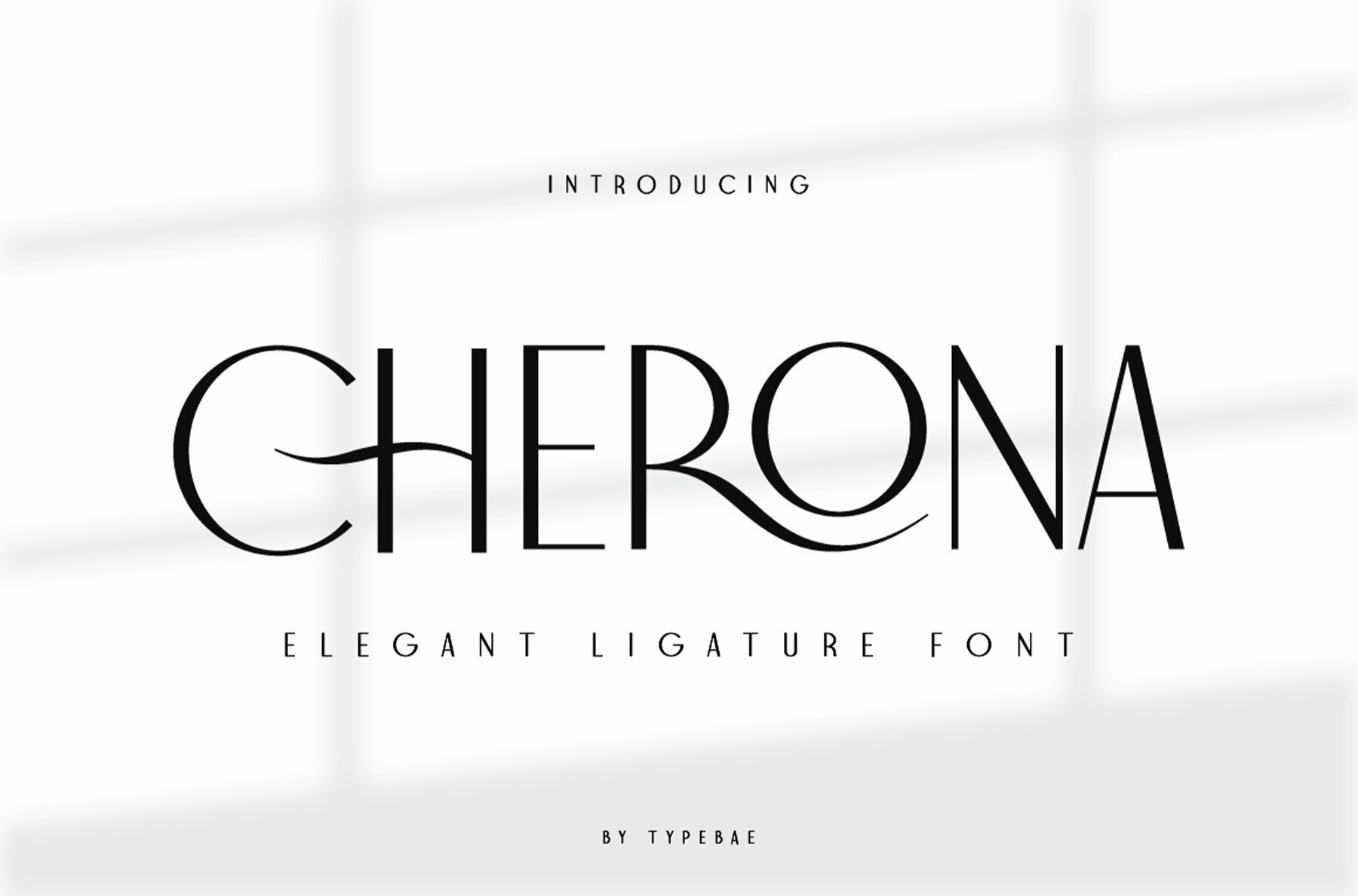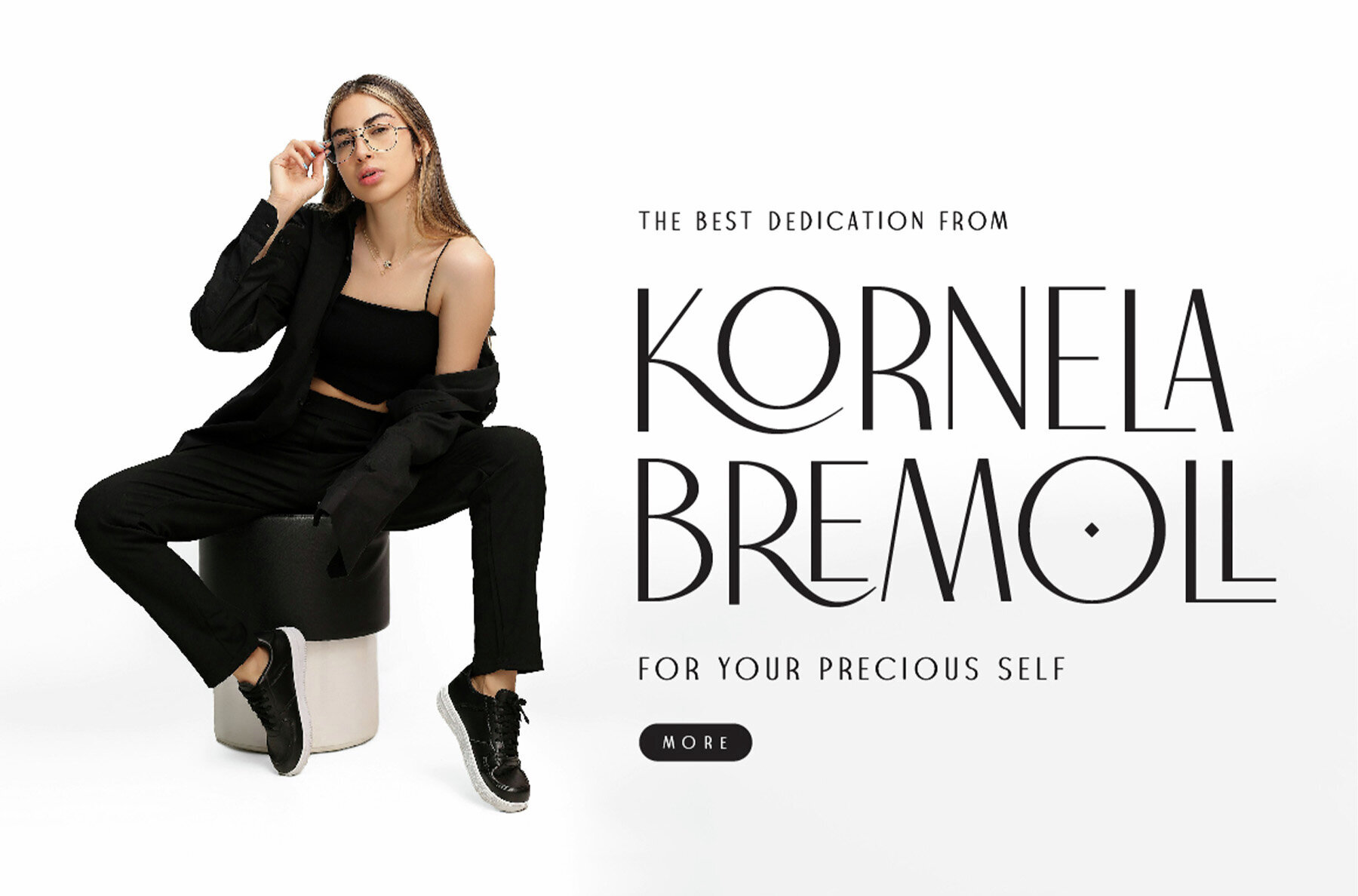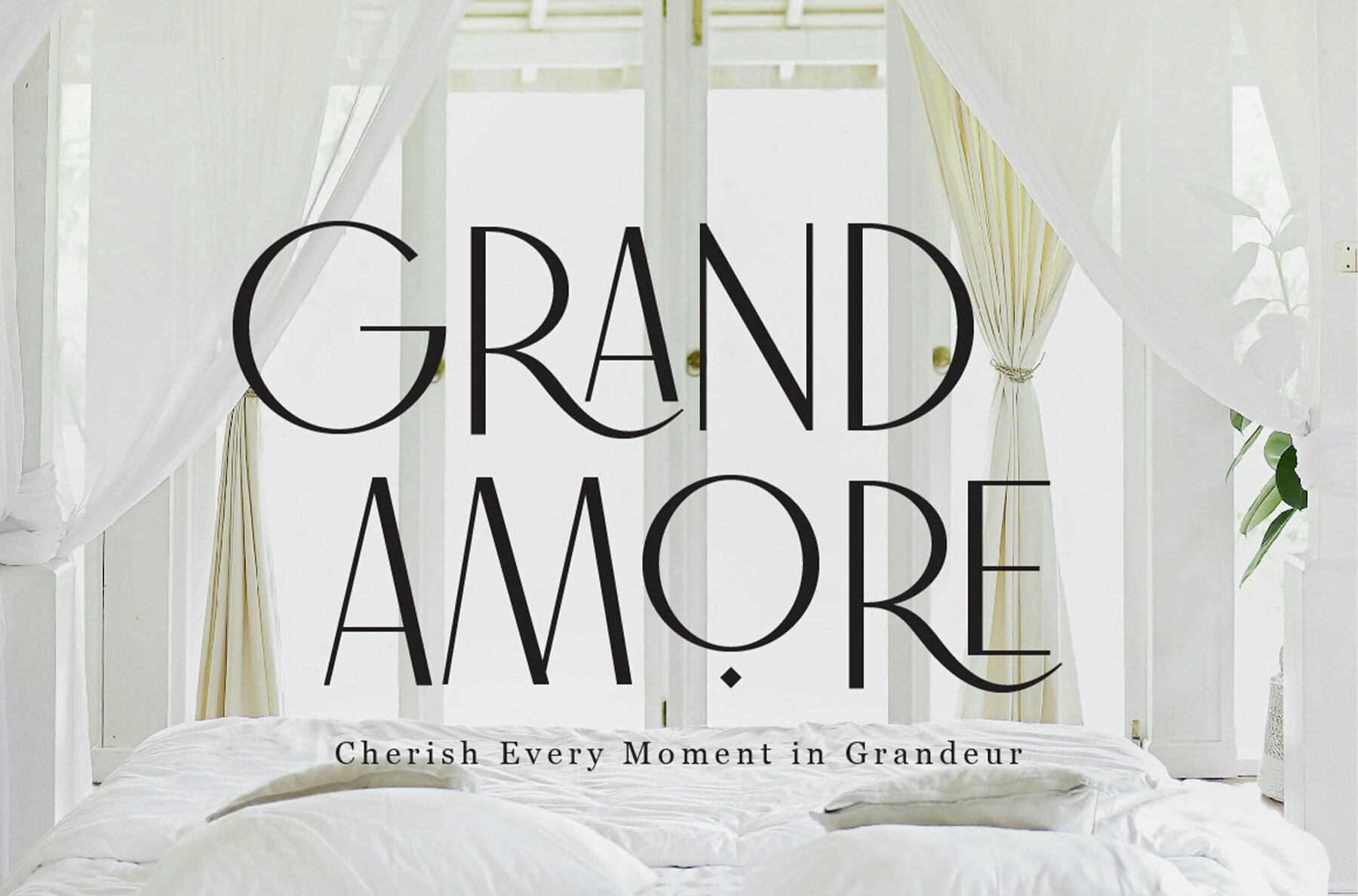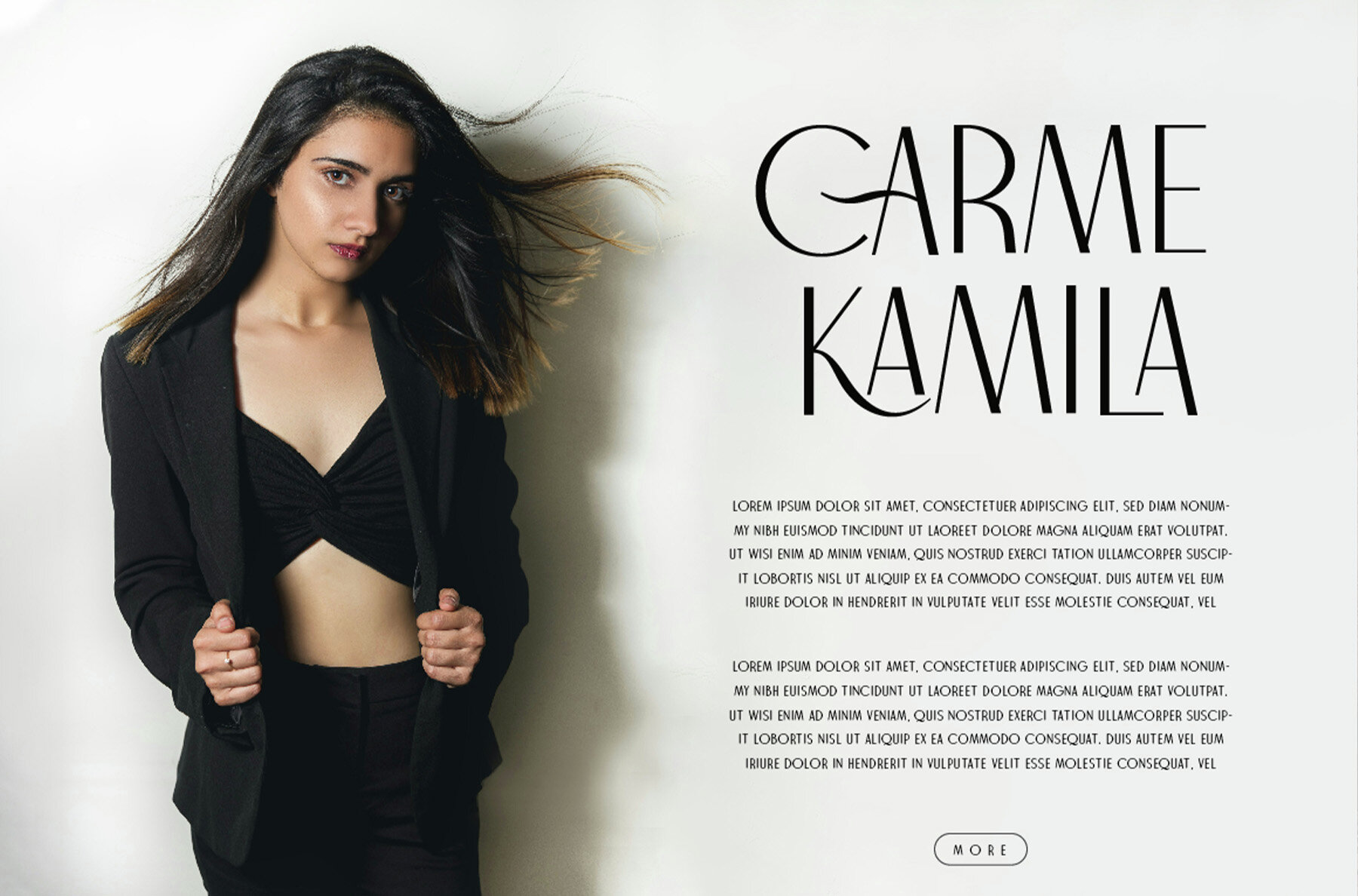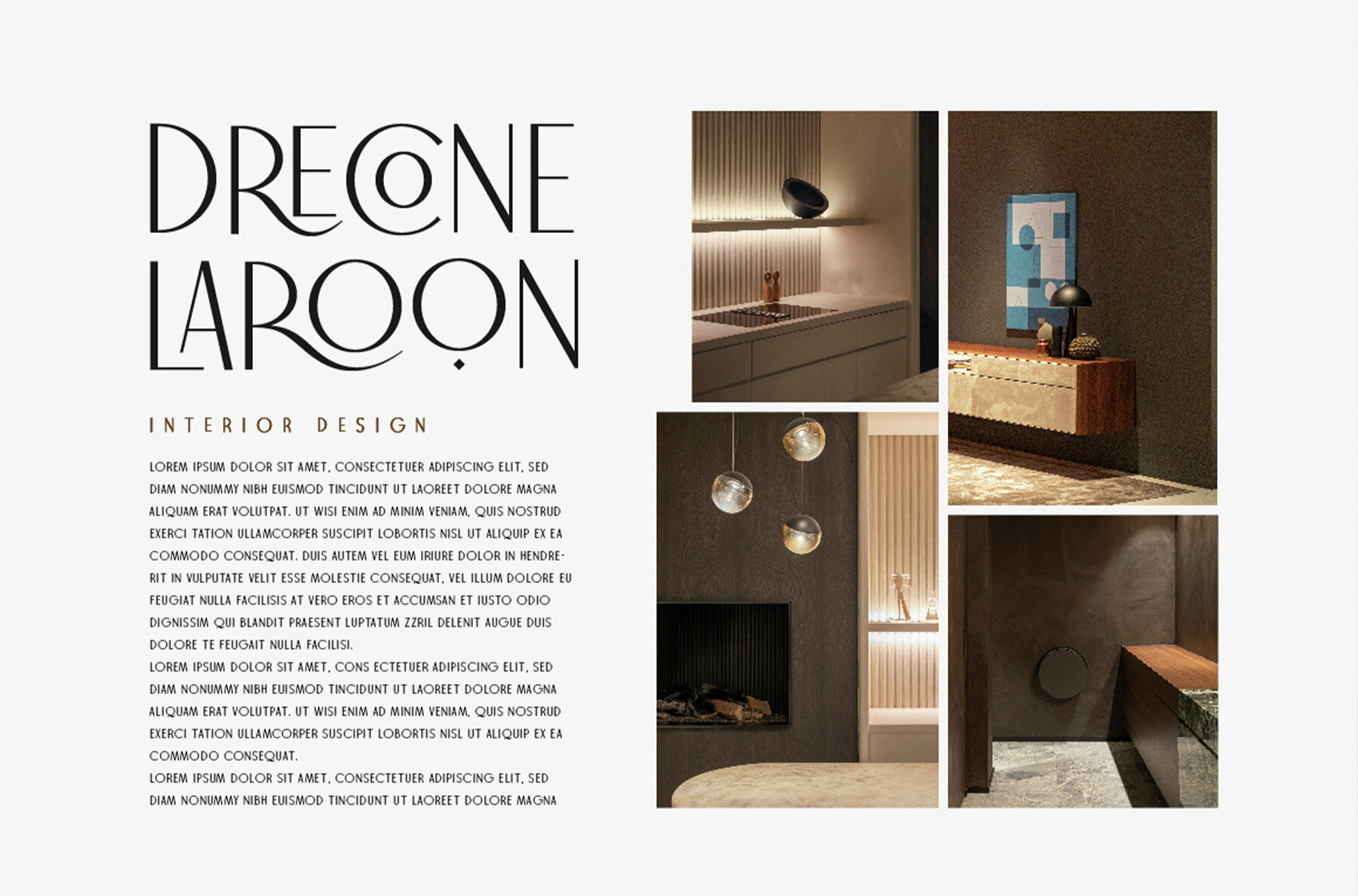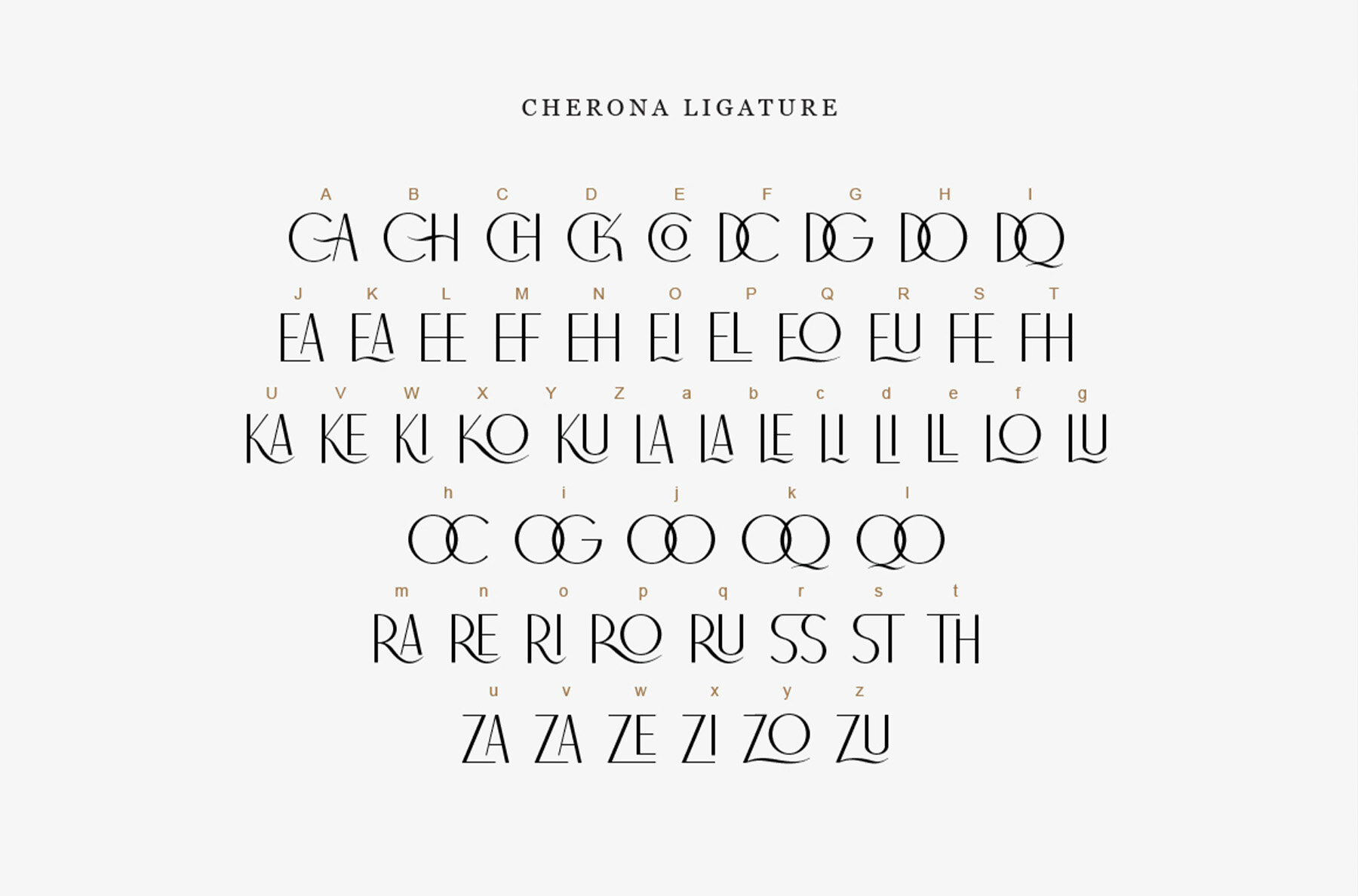
Cherona Font
Cherona brings refined style and sophistication to every project. With its graceful ligatures and balanced letterforms, this elegant typeface stands out in both bold headlines and delicate captions. Its versatility shines when used in luxury logos, fashion branding, editorial layouts, invitations, home décor accents, and book covers. Cherona’s sophisticated character lends a polished, upscale aesthetic to any design, creating a sense of luxury without excess. Choose Cherona to bring understated elegance and a contemporary edge to your next creative project.Cherona: Timeless Elegance Meets Modern Versatility